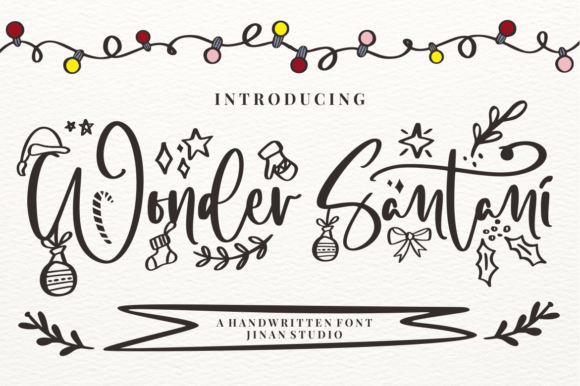
In a world clamoring for originality, Wonder Santani Font stands tall, an enchanting handwritten script font that's sure to cast a spell on your creative ventures. With its graceful strokes and elegant curves, this font breathes life into words, transforming them into captivating expressions of art.
Unleash your creativity with Wonder Santani, the ultimate weapon against bland and monotonous designs. Its versatility knows no bounds, seamlessly adapting to a myriad of projects, from heartfelt greeting cards to bold headlines that demand attention. Experience the allure of romance interwoven into every character, adding a touch of magic to your digital creations.
Wonder Santani's charm lies in its PUA encoding, a secret key that unlocks a treasure trove of glyphs and swashes, empowering you to weave intricate designs with effortless grace. Dive into a world of limitless possibilities, where every letter dances across the screen, leaving a trail of enchantment in its wake.
Embrace Wonder Santani, and watch as your designs metamorphose into captivating masterpieces. This font is not just a tool; it's an extension of your imagination, a conduit through which your creativity flows freely. Dare to be different, to stand out from the crowd, and let Wonder Santani guide you on a journey of artistic exploration.